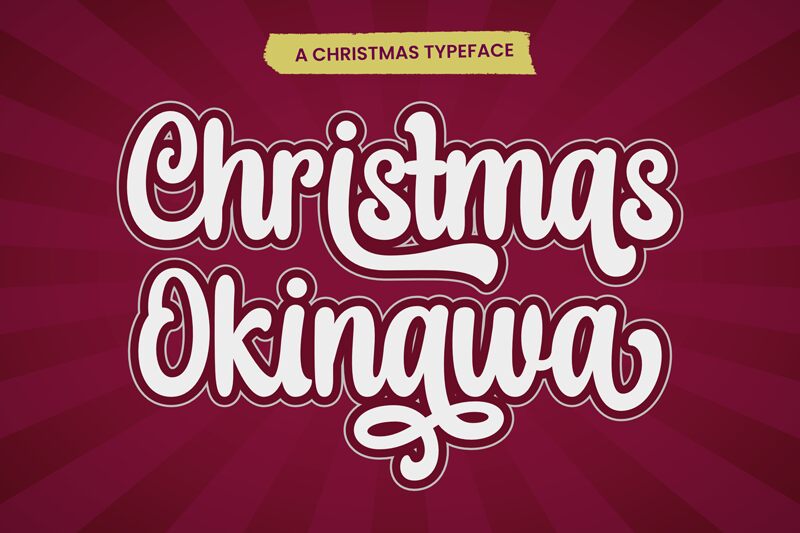
Christmas Okinawa Regular
Christmas Okinawa font by Lettersweet Studio combines brush style, historical flair, and lively fluidity into an expressive and elegant script font. Thick yet elevated strokes maintain a vibrant modern signature style suitable for a wide variety of project fields.
As a free calligraphy font available to all designers, Christmas Okinawa is suitable for use in logo designs, branding concepts for businesses such as jewelry shops or fashion stores, advertisements, typed identity presentations on business cards or stationery items like notebooks or pins featured in boxed packaging designs.